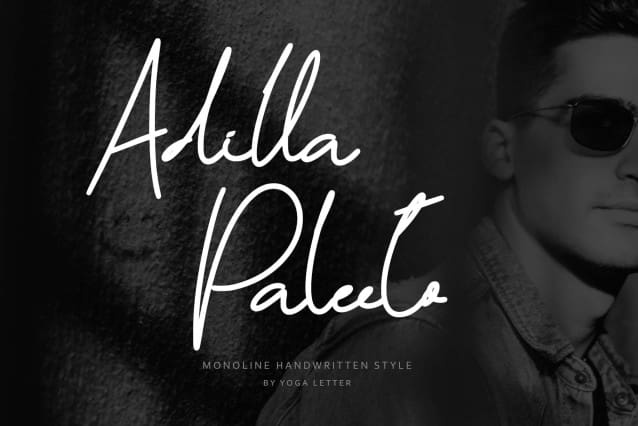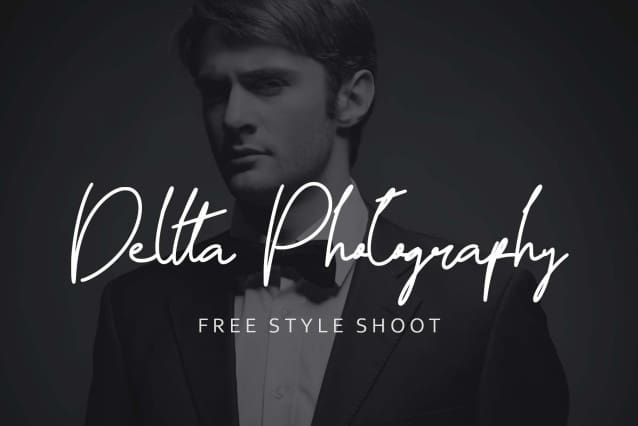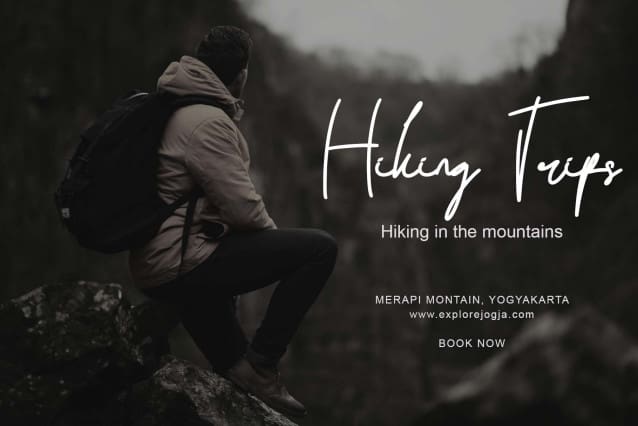
Adilla Paleeto Font
Adilla Paleeto Font is an elegant and beautiful monoline handwritten font. This font is equipped with uppercase, lowercase, numerals, ligatures, punctuation, and multilingual support. Very suitable for weddings, photography, invitations, engagements, logos, banners, posters, prints, and others.